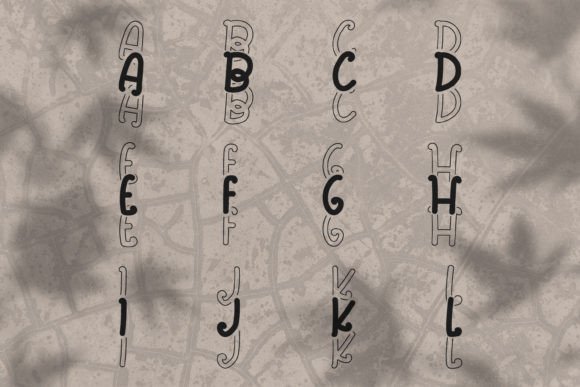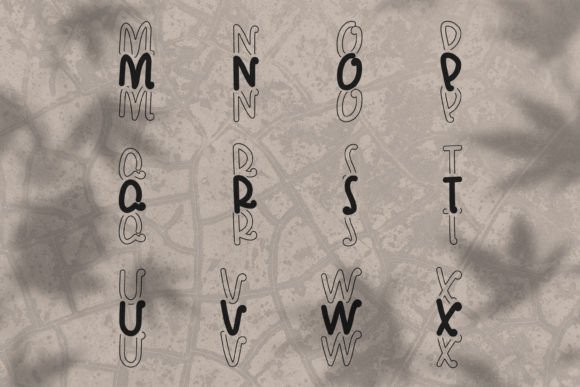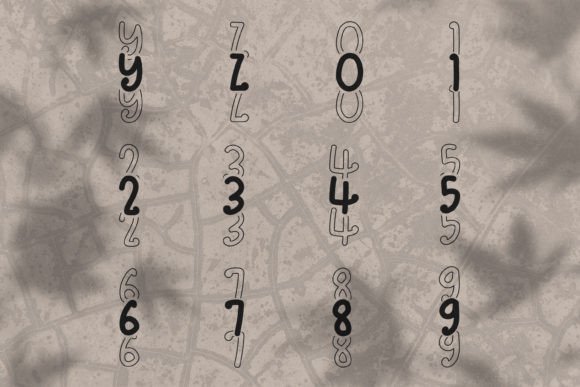
Introduction to Mirrorverse Font
Mirrorverse is an incredibly cool font.
Whether you use it for custom designs, DIY crafts, or just any creation that requires a lovely touch, this font will be an amazing choice .
Key Features of Mirrorverse Font
Why Choose Mirrorverse Font?
Mirrorverse Font offers exceptional quality and versatility, making it a valuable addition to your design toolkit. Whether you’re creating for personal projects or commercial use, Mirrorverse Font delivers professional results.